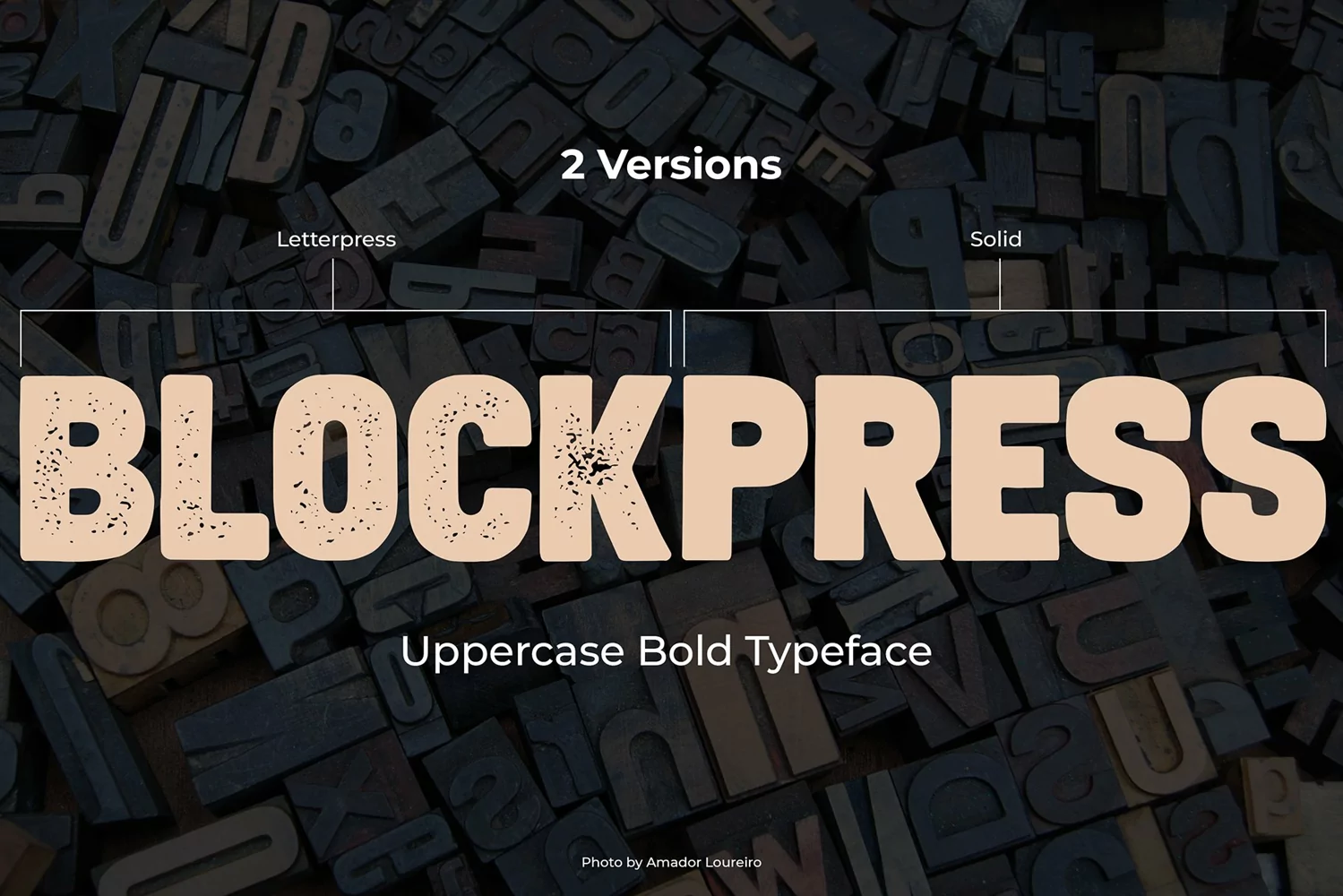
BlockPress is an uppercase sans-serif letterpress grotesque type font. It is a vintage looking decorative bold distressed typeface great mainly for titling, headings.
BlockPress font was designed by Mint Pixels and comes in two styles - letterpress and solid, both in OTF file format.